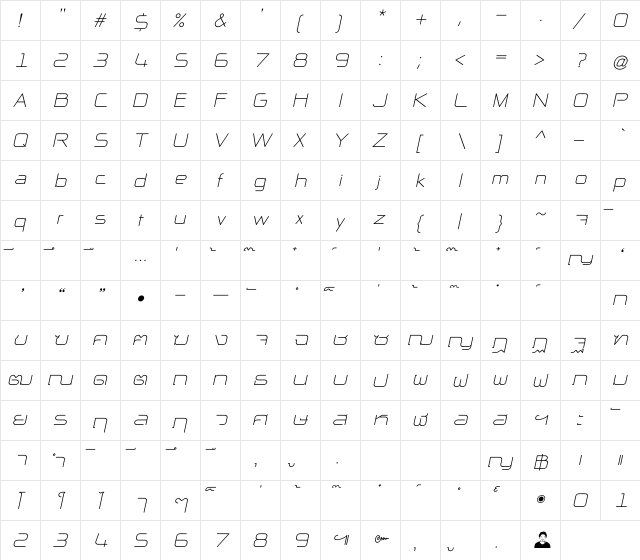
NP Naipol All in One Italic
| Designer | Pol Udomwittayanukul |
Design Context for NP Naipol All in One Typeface
NP Naipol All in One takes a measured approach to typography — its balanced proportions and neutral character make it a reliable workhorse for both digital and print work. Its italic angle brings a sense of urgency and motion to the letterforms.